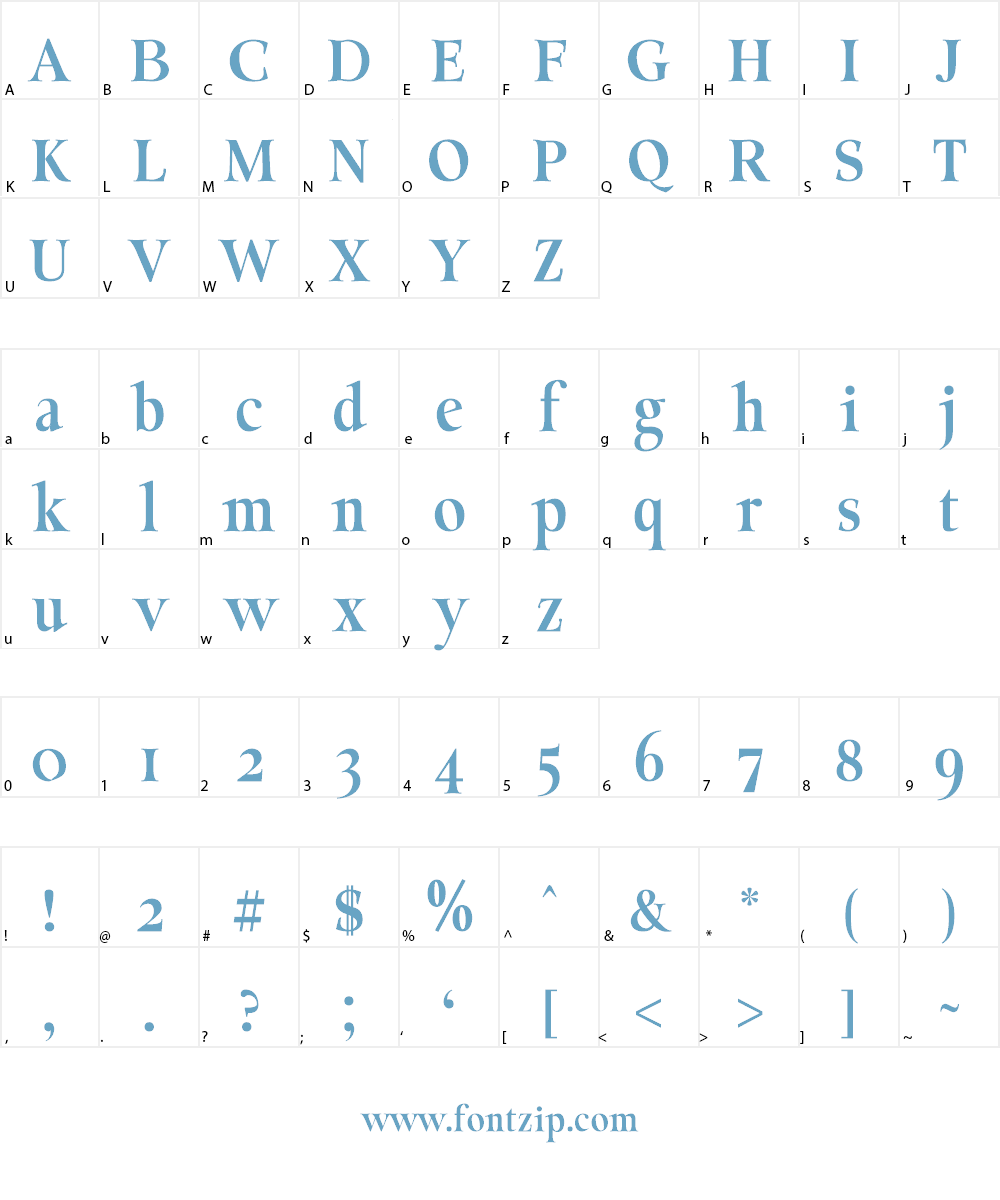
A font made by coiffeurs, for coiffeurs. Great for a hair salon, hairdresser, or barbershop logo. Free use only. Buy the full licence on https://www.destockcoiff.com